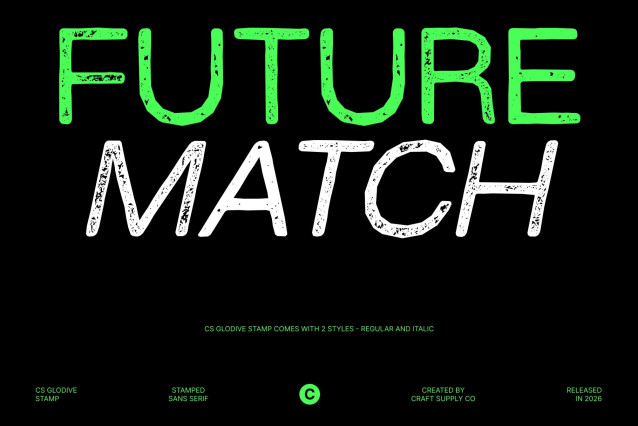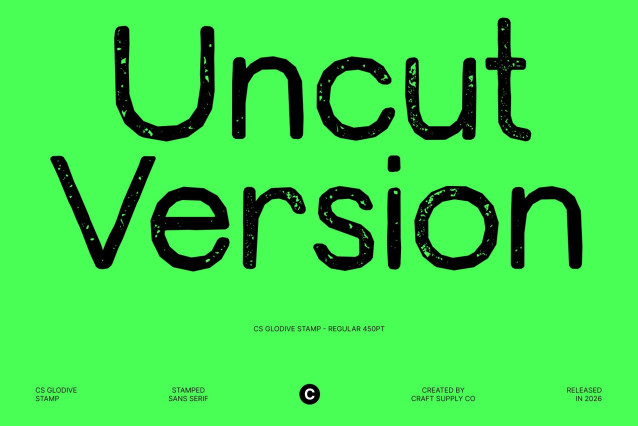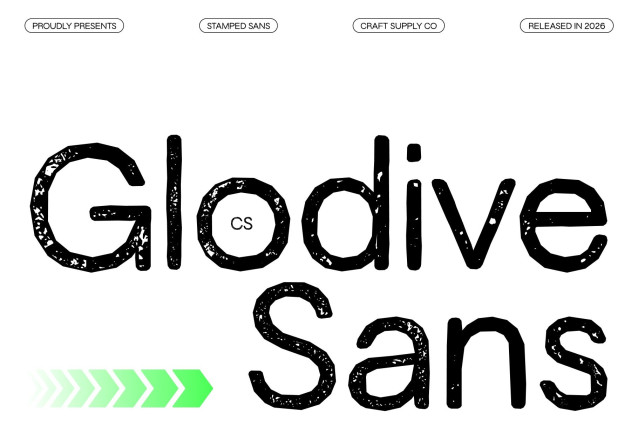
CS Glodive Stamp Font
CS Glodive Stamp – Modern Font: Sleek Professionalism with Vintage Character
Modern Sans Serif with an Elegant Touch
This is a modern sans-serif font that blends clean minimalism with refined elegance and a subtle stamp texture. Its sleek construction delivers a professional appearance while the stamped details introduce warmth and character, creating a balance between contemporary precision and timeless charm.
Perfect for Corporate Use
Designed for professional environments, maintains strong clarity and reliability across logos, official documents, websites, and promotional materials. The structured letterforms ensure excellent readability while adding a distinctive visual identity.
Stamp Texture with a Classy Vintage Feel
The stamp effect enhances the font with gentle imperfections and artistic texture inspired by traditional printing techniques. This subtle worn detail adds depth and a vintage personality, giving corporate designs a more human, authentic, and memorable impression.